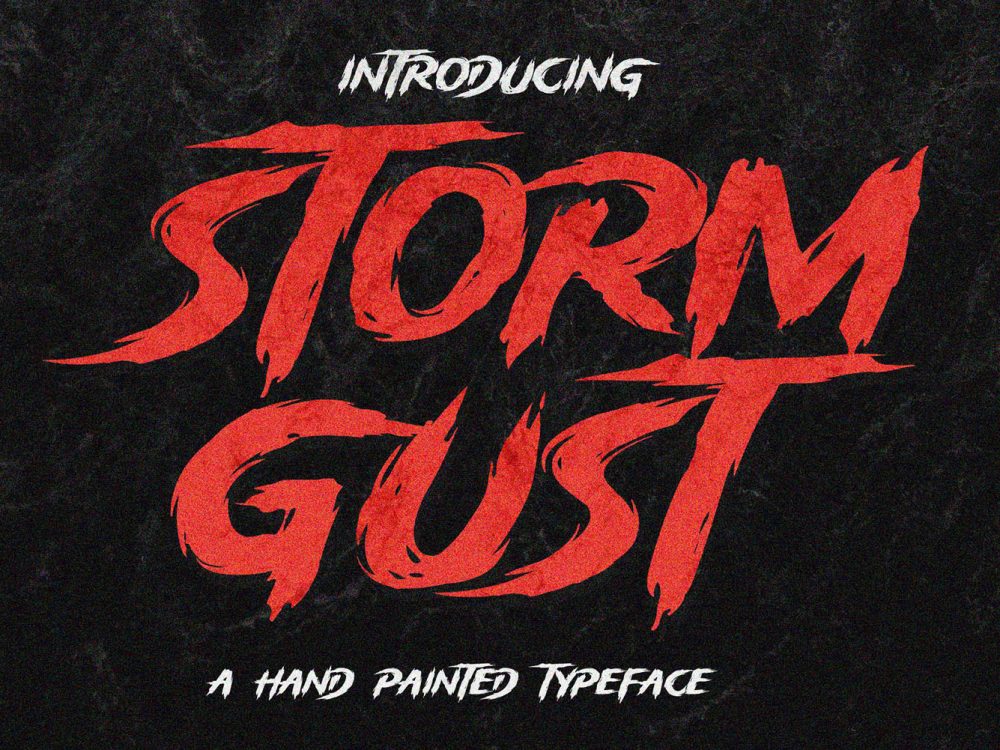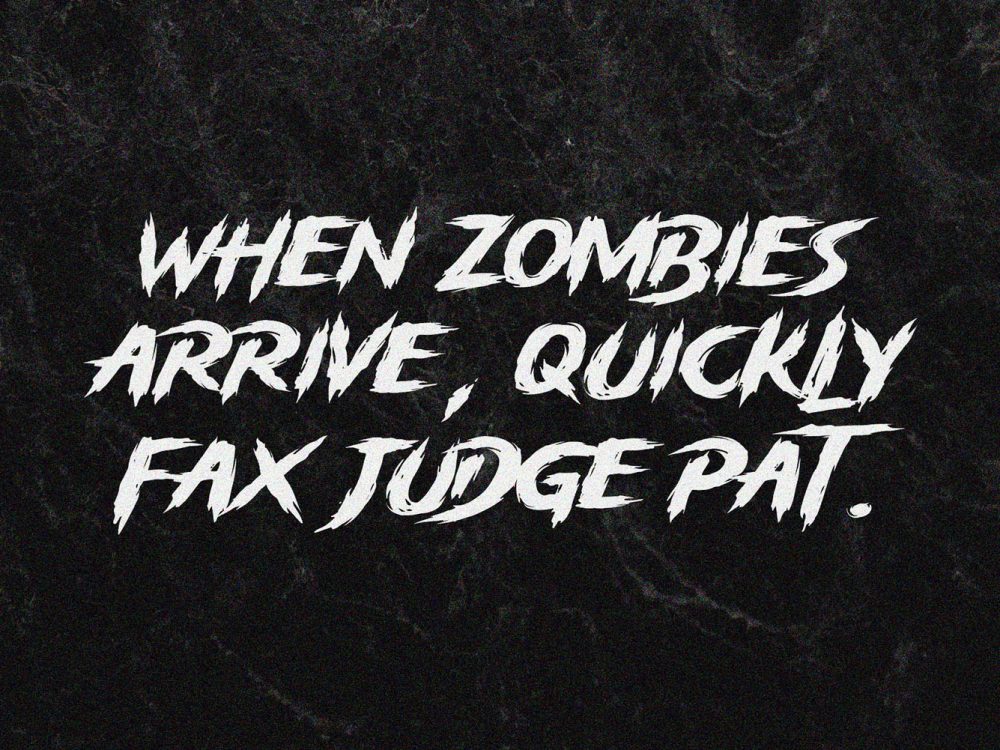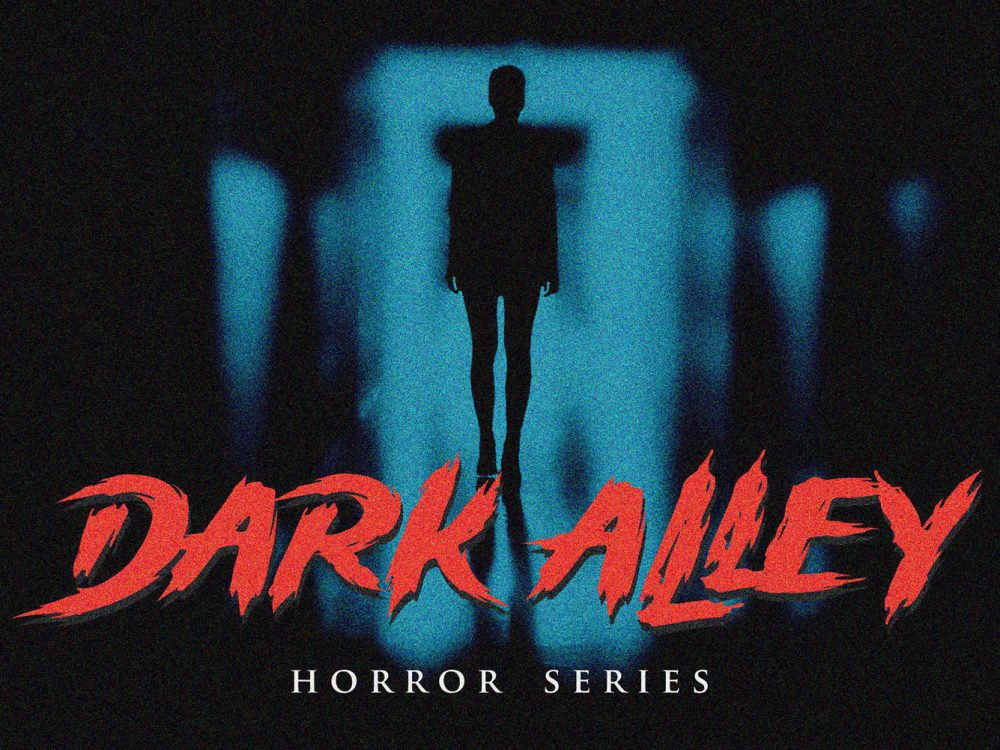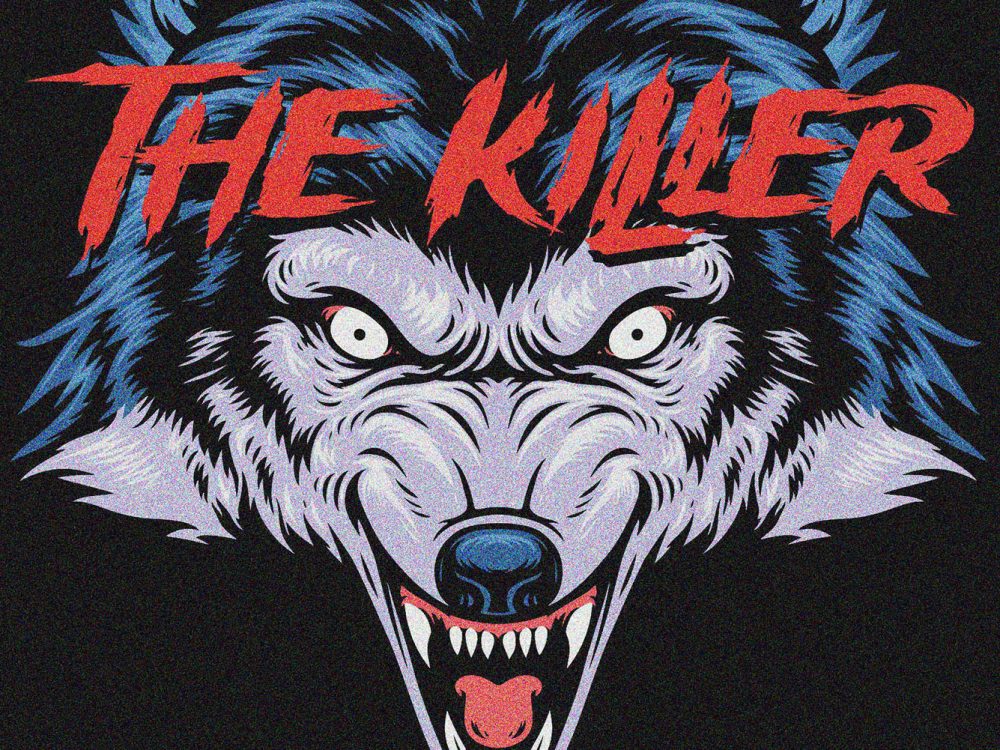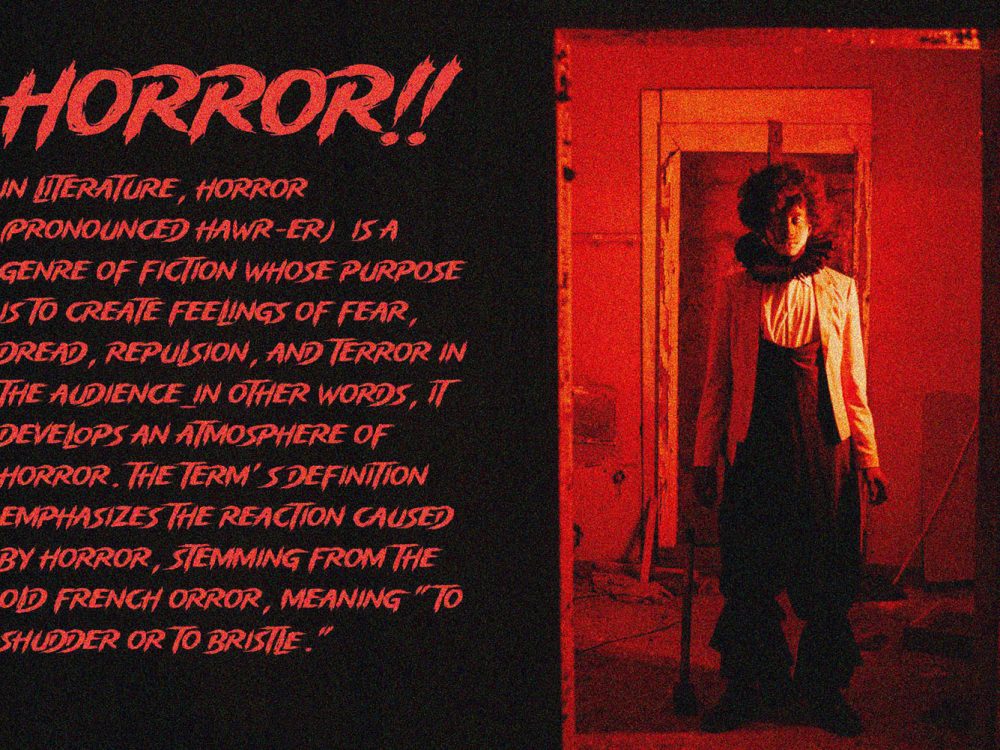
Storm Gust Free Font
Storm Gust Free Font is an interesting modern beautiful handwritten font that simulates detailed brush writing and is very suitable for creating various design projects that require a scripted font. These can be posters, wedding invitations, cards, branding, flyer prints, and more. If you wish to access more features and use them for commercial work please buy the full version.